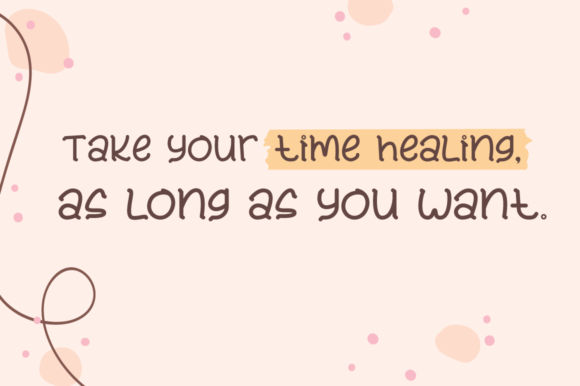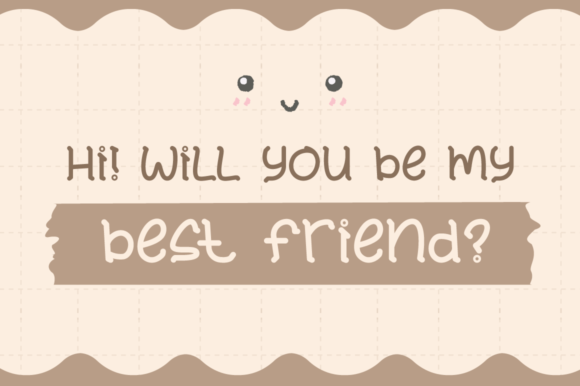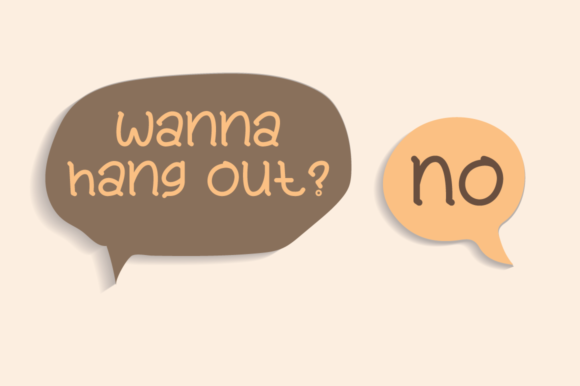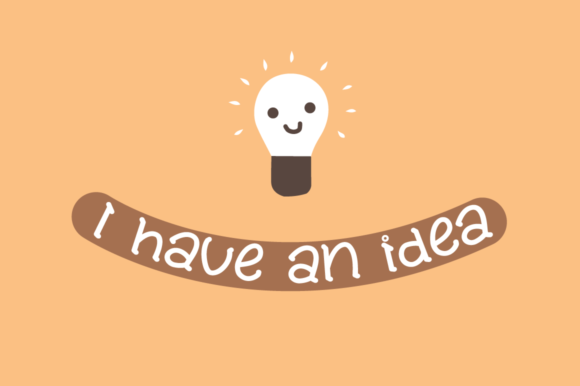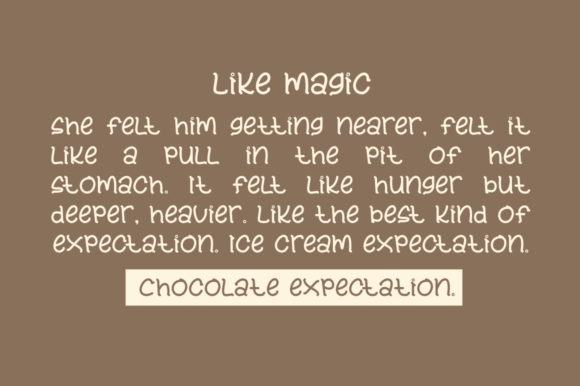
About Mon Amour Font
Mon Amour is a thin and playful handwritten font. Its sweet and round letters make this font a masterpiece. Fall in love with its incredibly versatile style and use it to create spectacular designs!